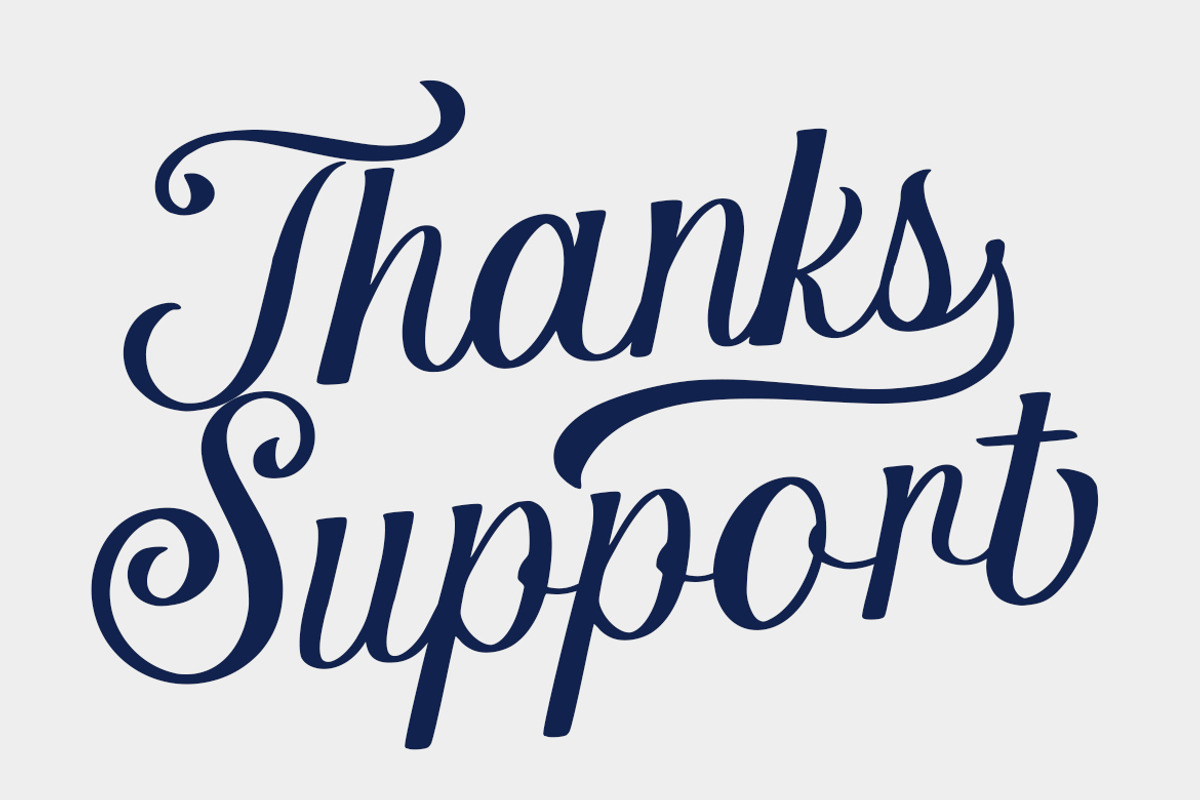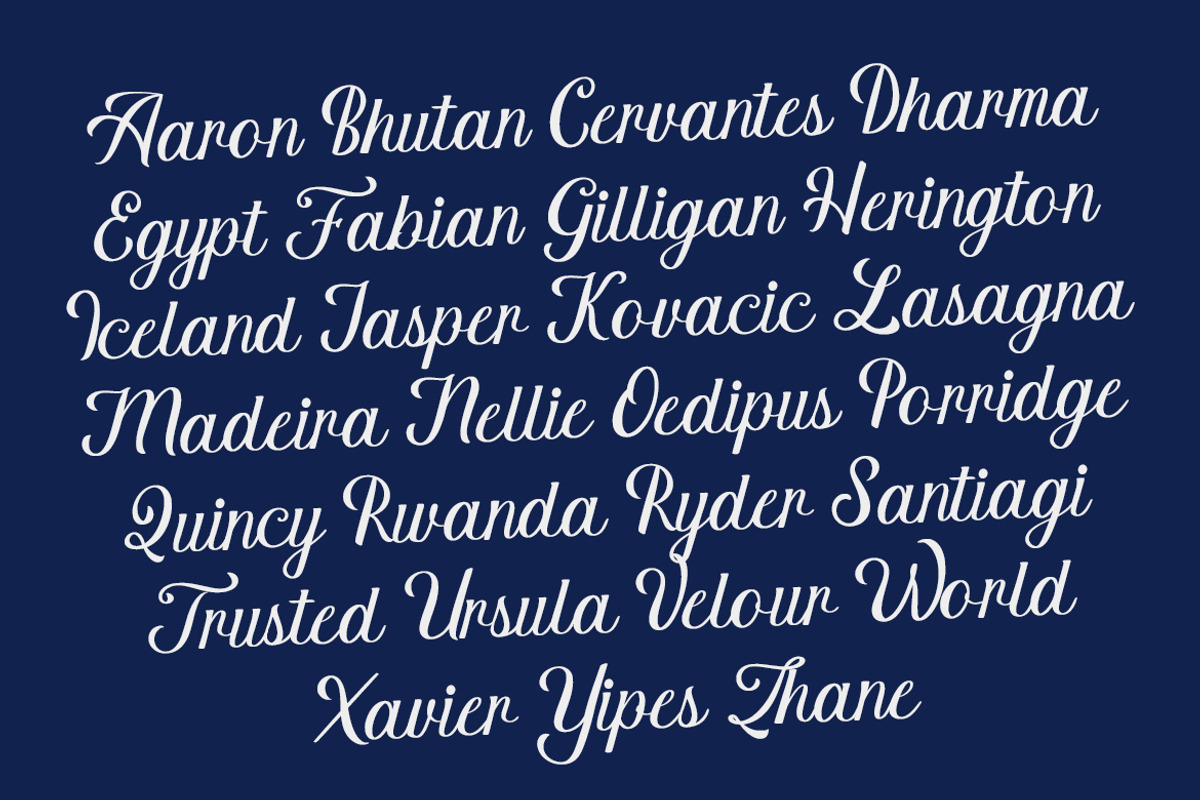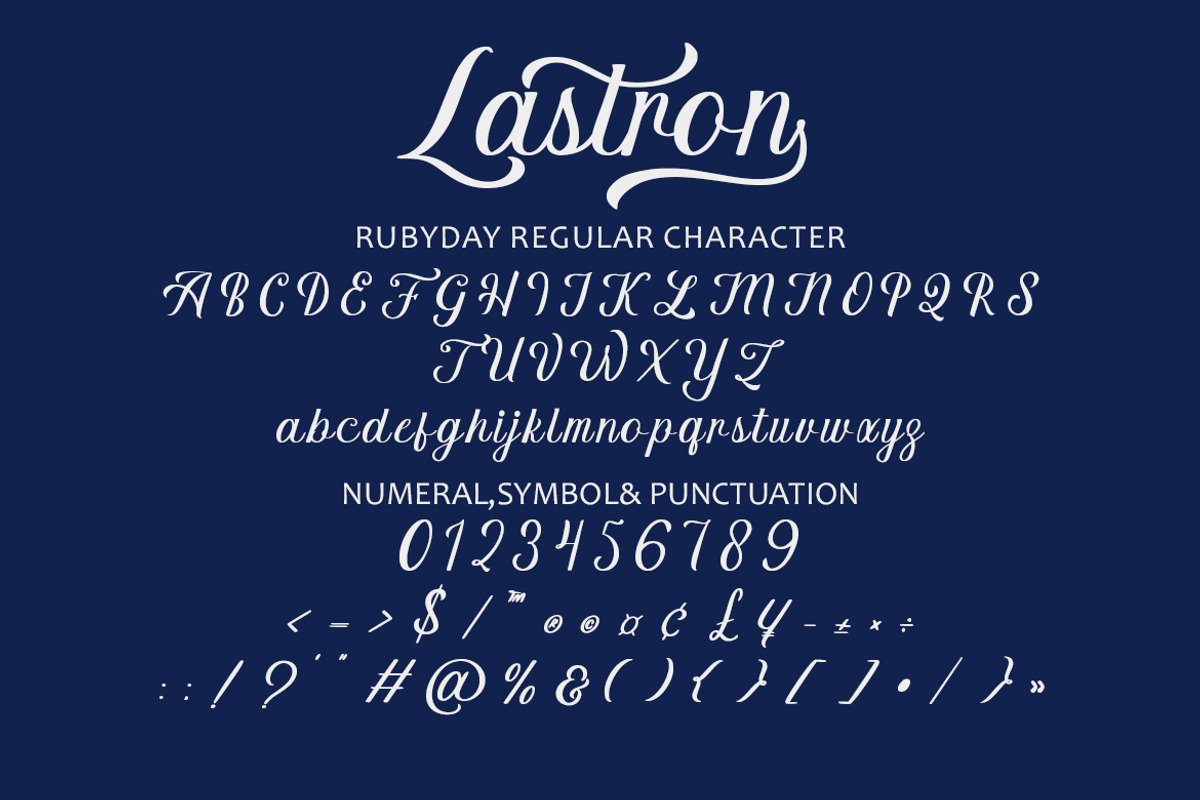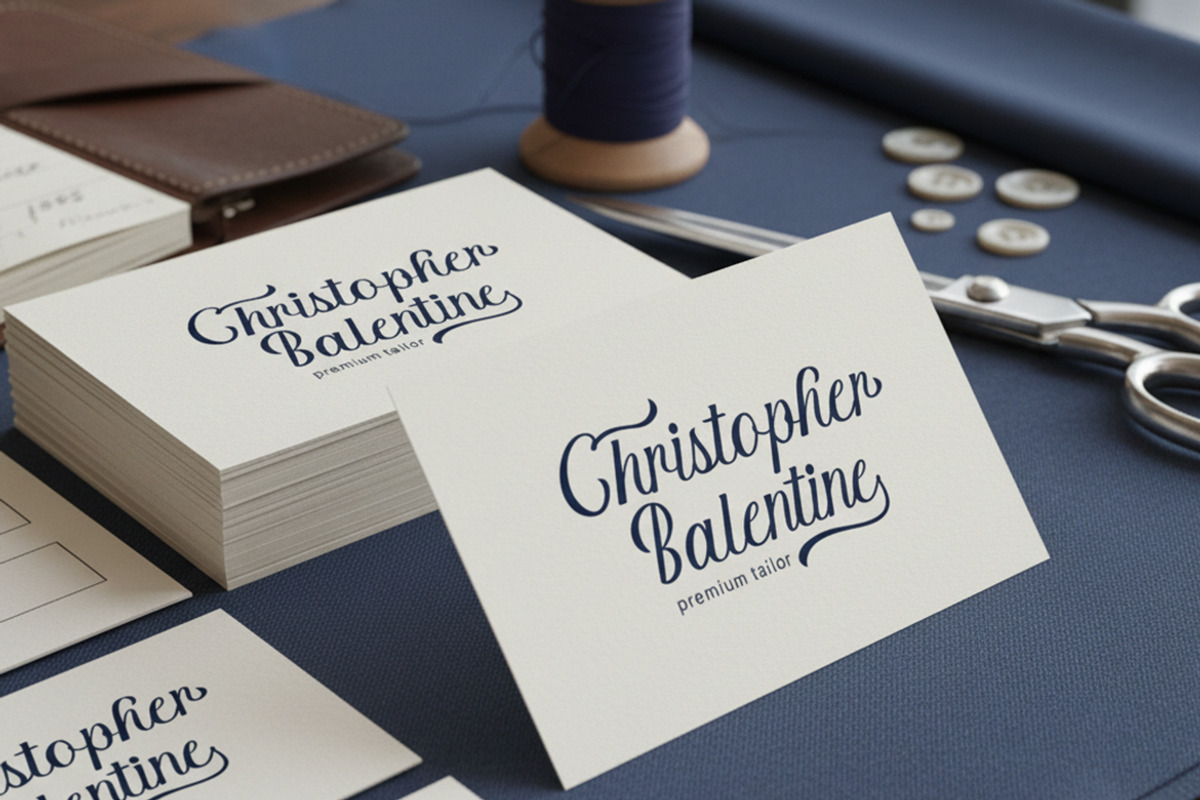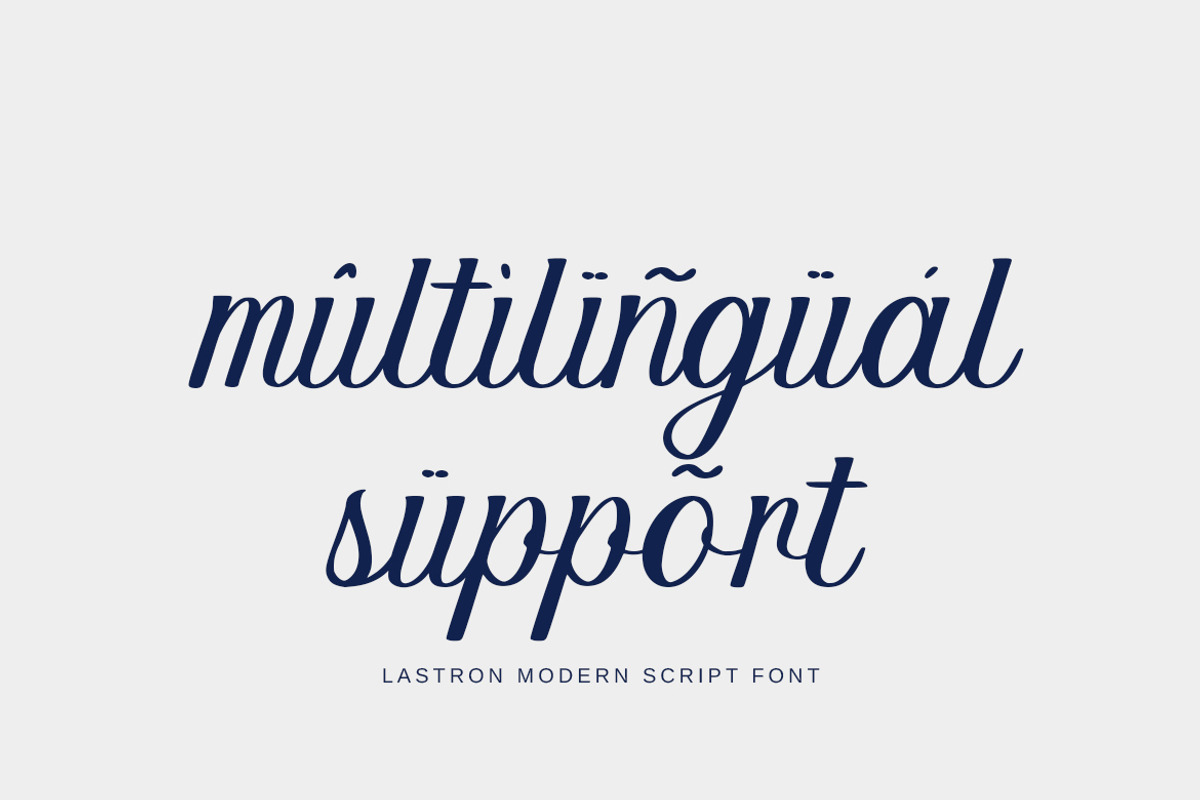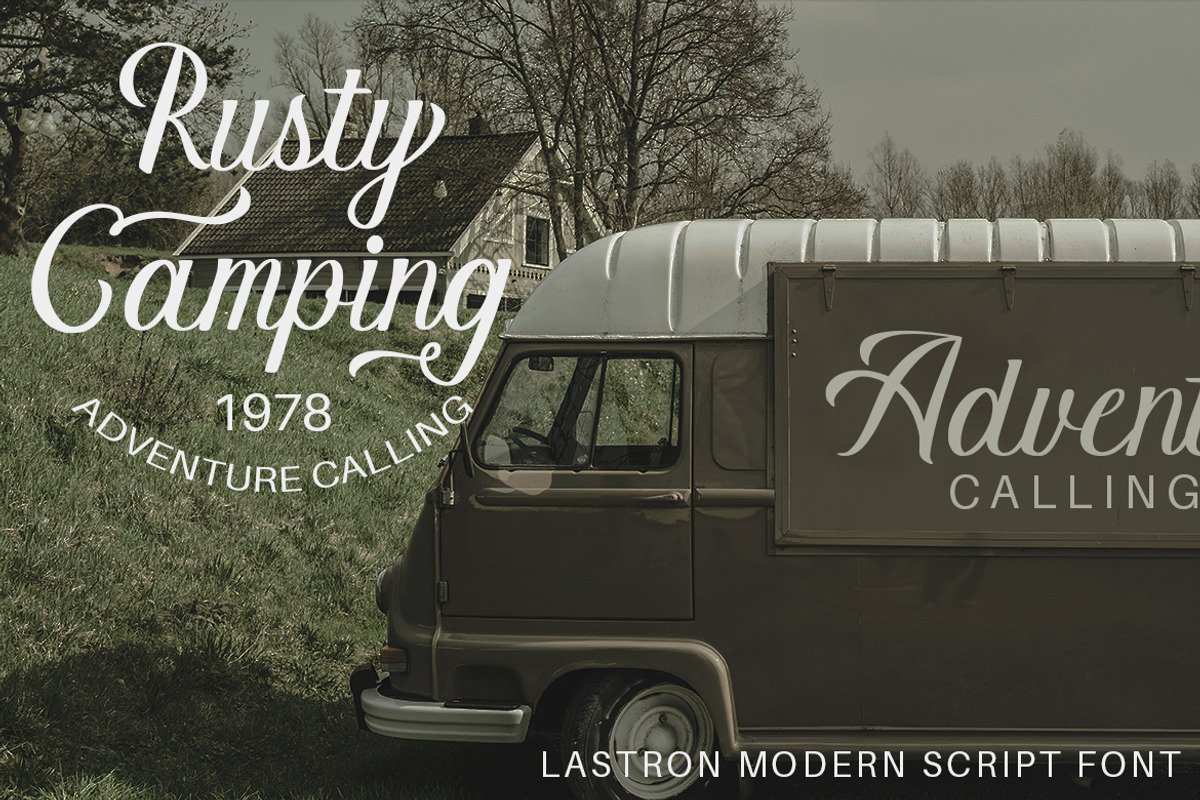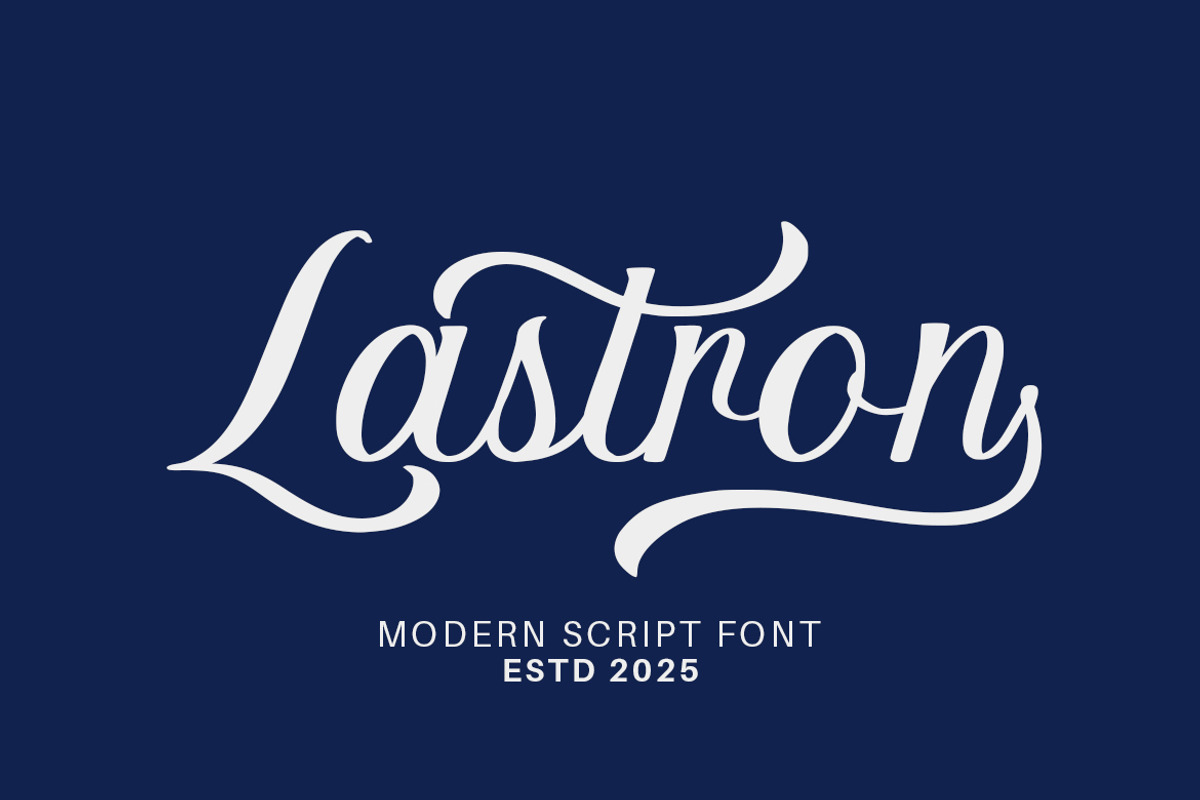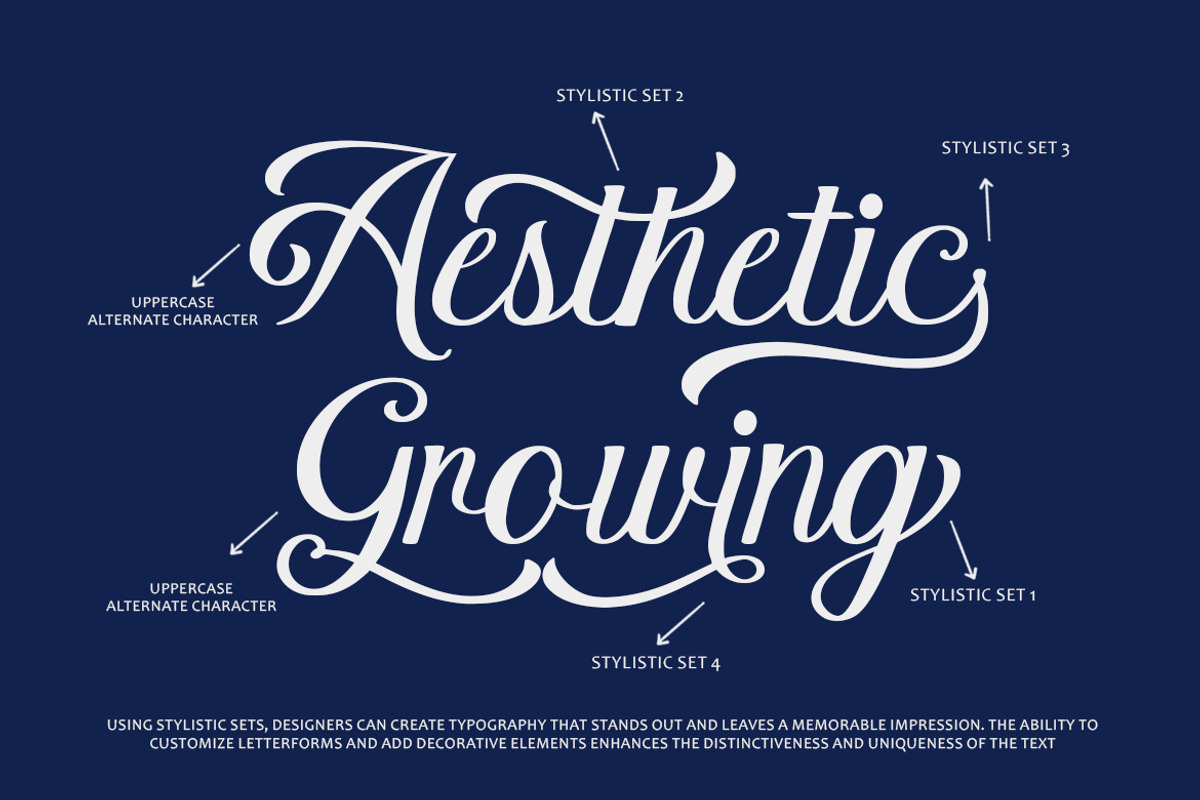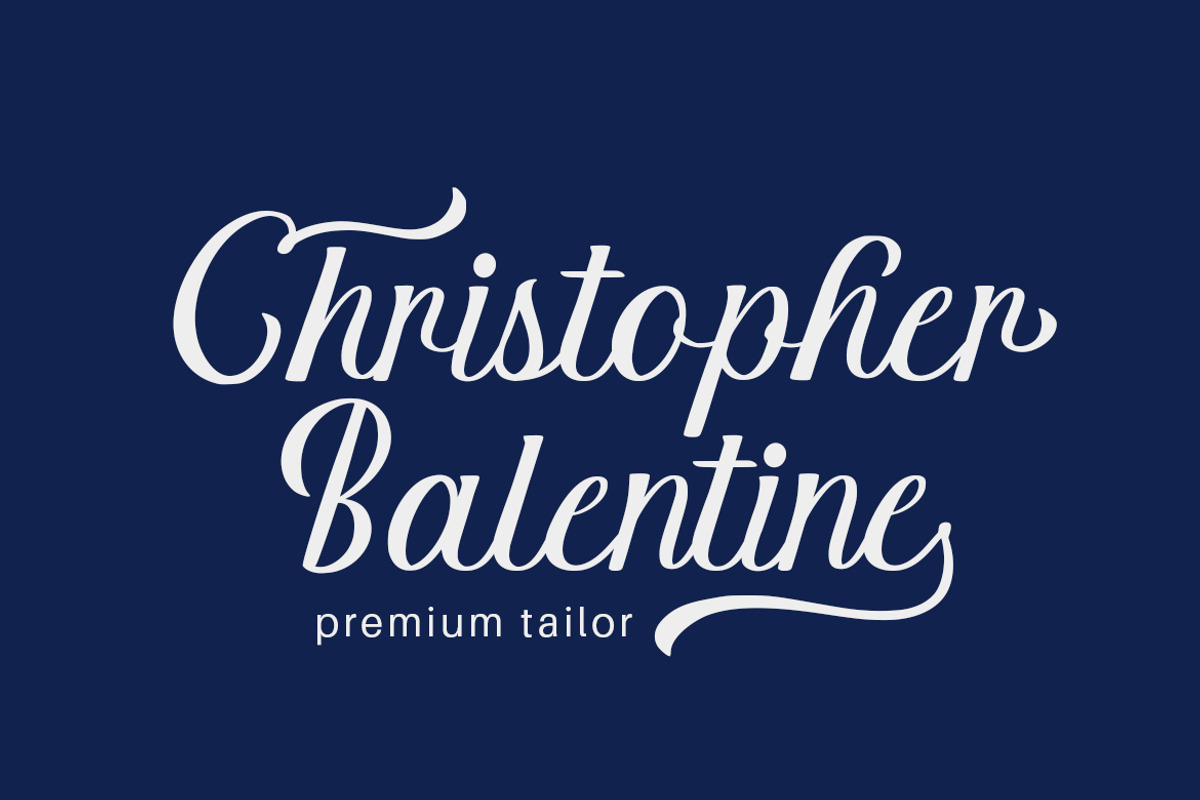
Lastron – Modern Elegant Script Font
Lastron is a modern elegant script font with smooth curves and stylish swashes, designed to bring a sophisticated and premium feel to your projects. Its flowing handwritten style makes it perfect for branding, logos, wedding invitations, packaging, social media, and luxury design needs.
This font delivers a clean, balanced, and timeless aesthetic that works beautifully across both digital and print applications.
- Uppercase Letters
- Alternate Character
- Unique Hand-Drawn Style